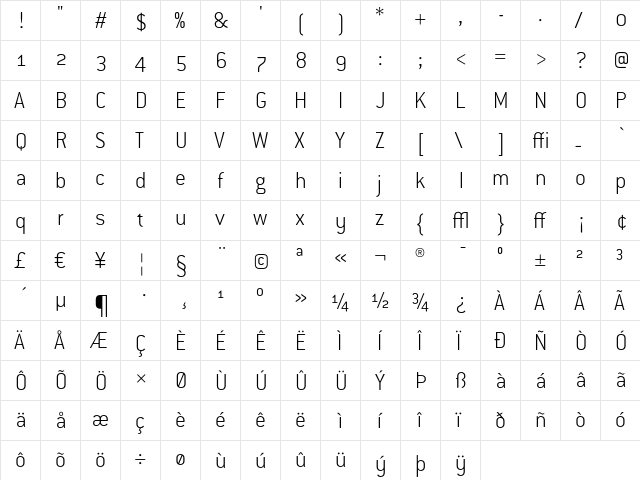
ConduitOSITC ExtraLight
Design Context for ConduitOSITC Typeface
ConduitOSITC is a composed and adaptable typeface that performs quietly and consistently across a wide range of design contexts. Its slender proportions lend an understated elegance to any composition. Its narrow stance lets it pack a punch even in space-constrained designs.